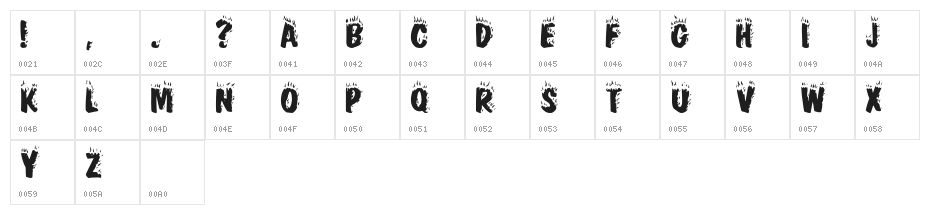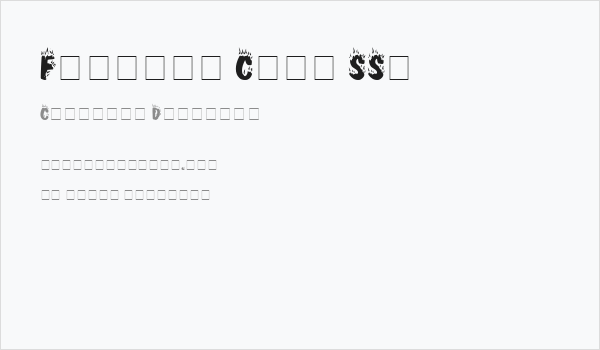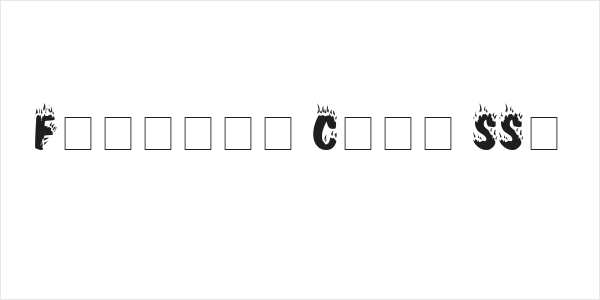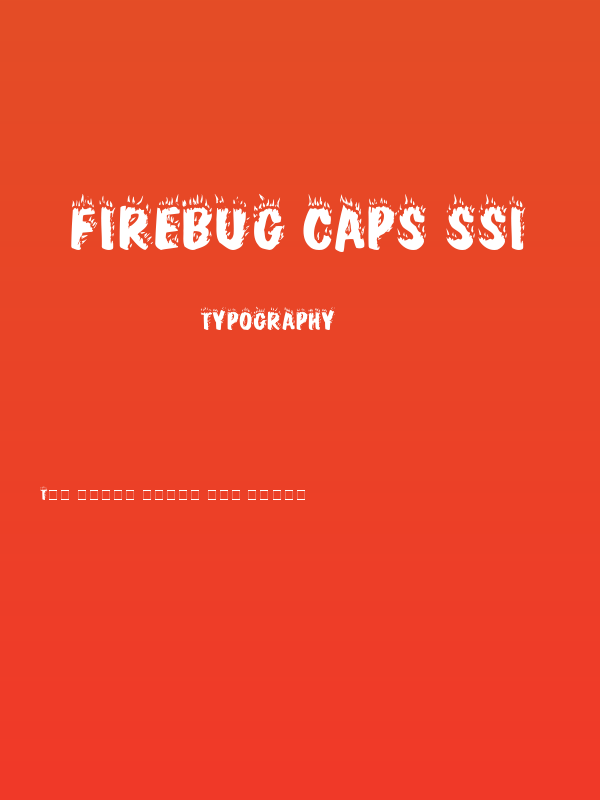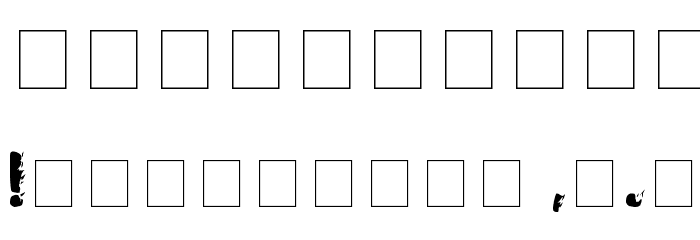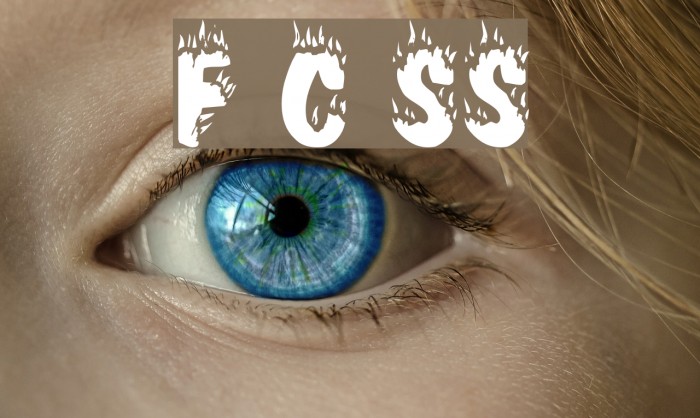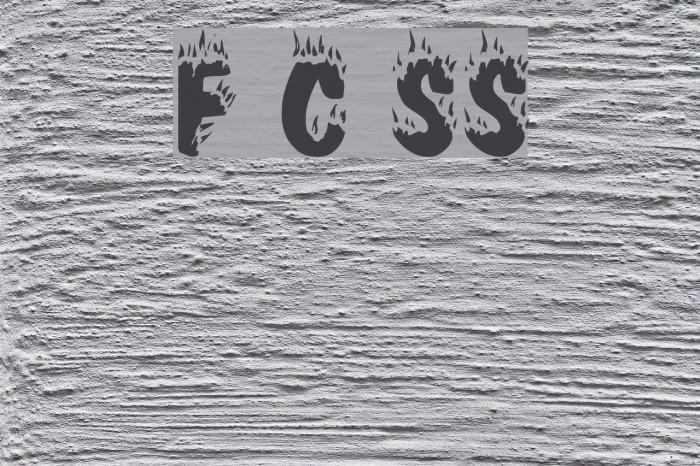
Firebug Caps SSi Font
| おすすめプロジェクト | Perfect for projects that require a dramatic and energetic feel, such as event posters, themed parties, or branding for dynamic products. |